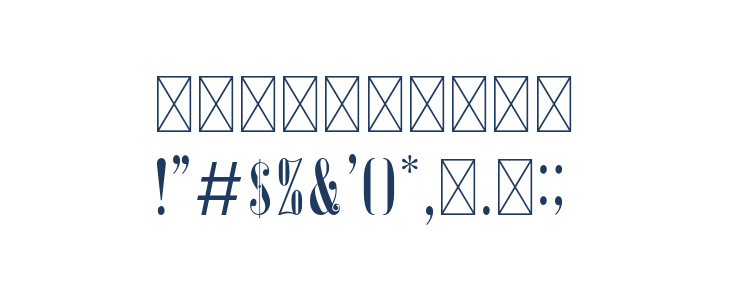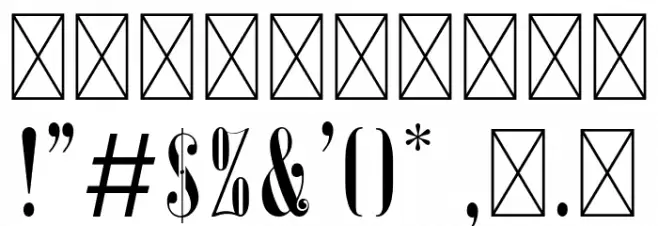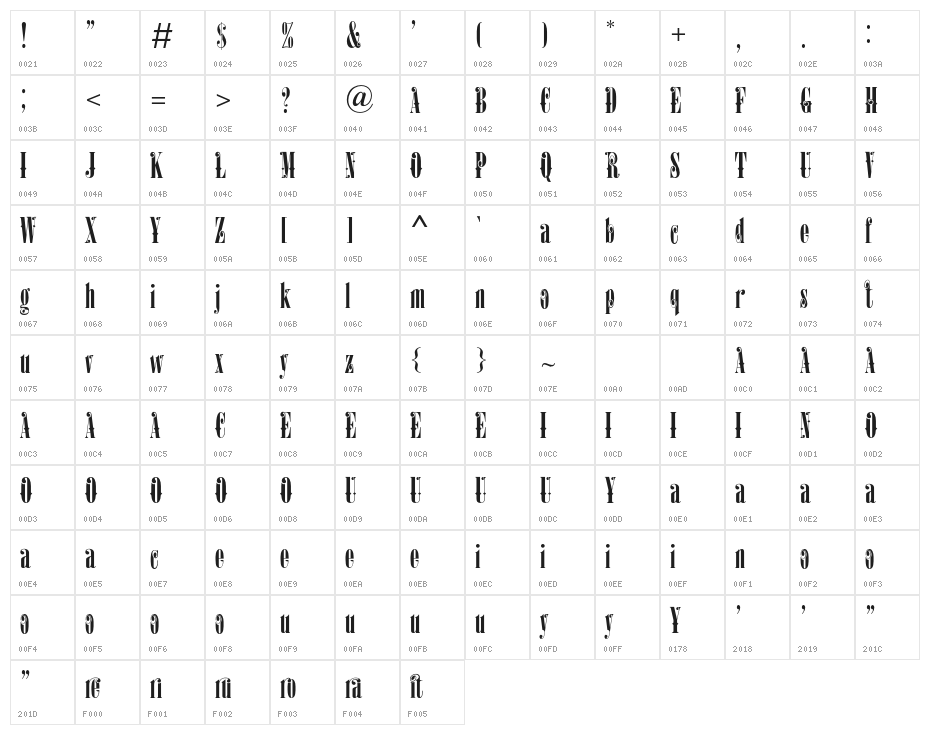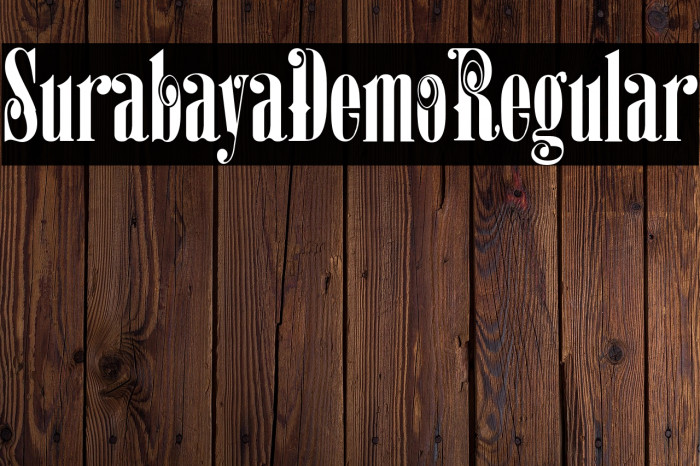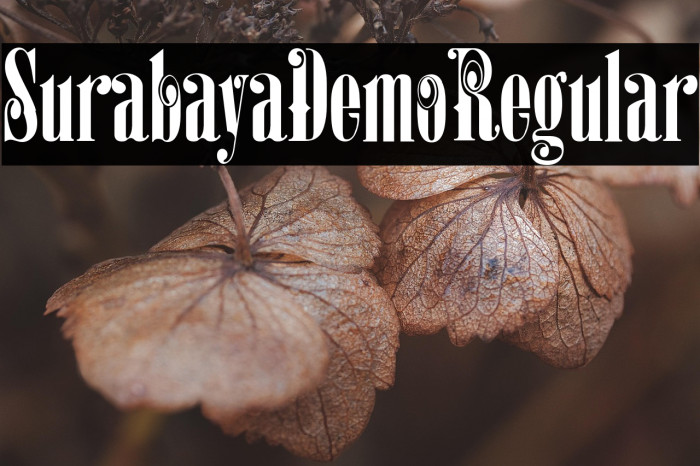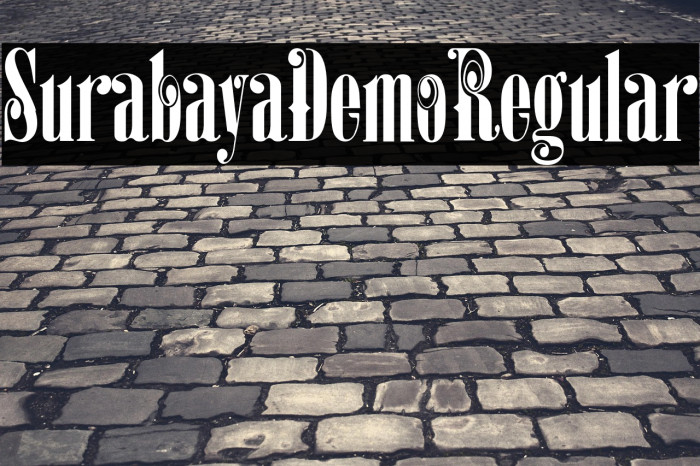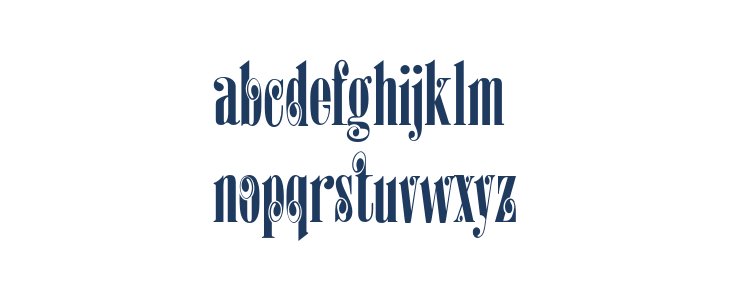
SurabayaDemoRegular Font
SurabayaDemoRegular Description
This font features a highly decorative and ornate style, characterized by its bold and dramatic serifs. The letters are embellished with intricate swirls and curls, giving it a unique and artistic flair. The uppercase letters are particularly striking, with exaggerated serifs and flourishes that create a sense of movement and elegance. The lowercase letters maintain the decorative theme, with some characters featuring additional loops and embellishments. This font is designed to capture attention and convey a sense of sophistication and creativity. The overall appearance is both vintage and theatrical, making it suitable for projects that require a bold and artistic touch.
| Proposed Projects | Ideal for use in branding, poster design, invitations, and any project that requires a dramatic and artistic typeface. |